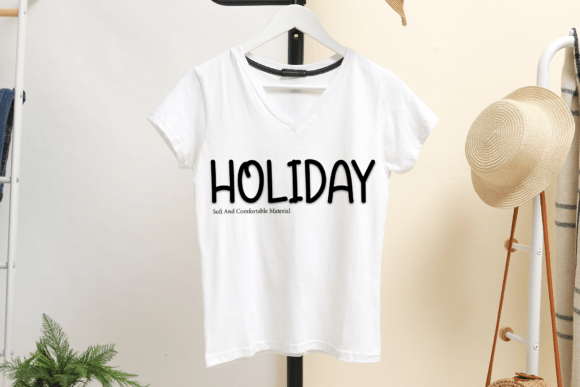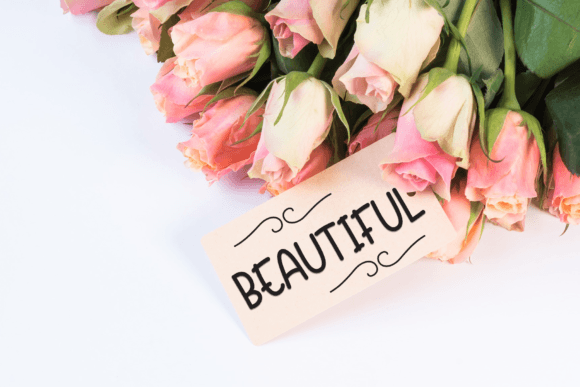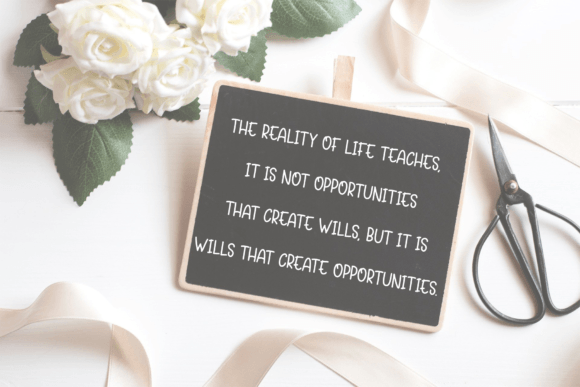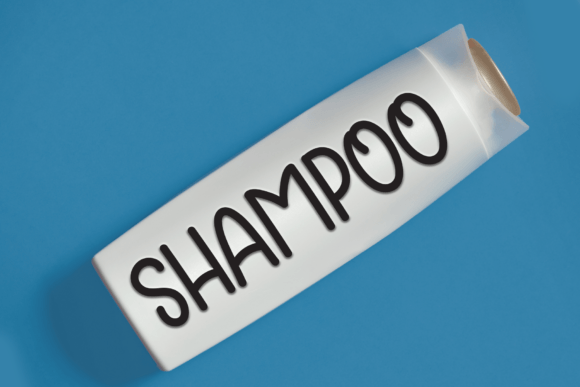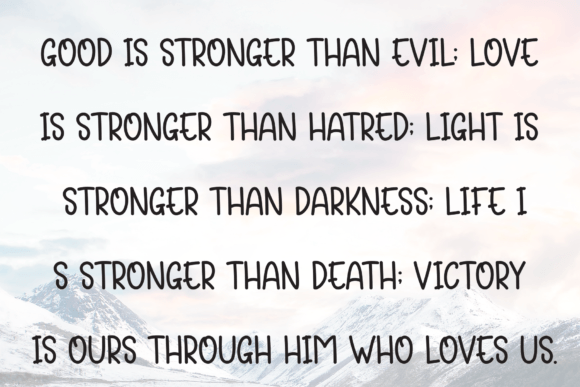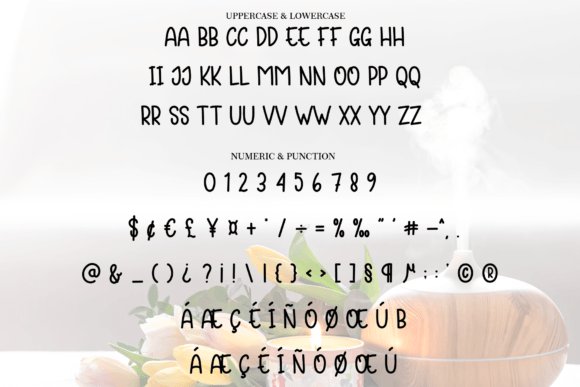
The Sweet Charm of Aroma Therapy Font: A Designer’s Delight
I’ll never forget the time I was working on a wedding invitation project, and my client asked for a font that was “sweet, friendly, and playful.” I scoured the internet, tried out dozens of fonts, but nothing seemed quite right. That was until I stumbled upon Aroma Therapy Font. This beautiful, handwritten font won my heart and my client’s, too! In this article, I’ll share my experience with Aroma Therapy Font, its features, and how to make the most of it in your designs.
- ✨ Fresh and Cute: Aroma Therapy Font is perfect for designs that need a fun touch. Its sweet and friendly vibe makes it ideal for wedding invitations, cards, and more.
- ✅ Highly Readable: The font is clear and easy to read, even at smaller sizes, making it perfect for body text or captions.
- 💕 Versatile: Aroma Therapy Font can be used for a wide range of projects, from digital designs to print materials.
While Aroma Therapy Font is an excellent choice, there are a few things to keep in mind:
- 🤔 Limited Formality: As a handwritten font, Aroma Therapy may not be the best choice for very formal or professional designs.
- ⚠️ Glyph Limitations: While the font has a range of glyphs and alternates, it may not have every special character or symbol you need.
The Story Behind Aroma Therapy Font
Aroma Therapy Font was designed with love and care by a talented type designer. Inspired by the world of perfumery and the art of fragrance, this font was crafted to evoke feelings of warmth and comfort. With its sweet, friendly vibe, Aroma Therapy Font is perfect for designs that need a touch of personality.
Q: What is Aroma Therapy Font best used for?
A: Aroma Therapy Font is ideal for designs that need a sweet, friendly touch, such as wedding invitations, cards, and other creative projects.
Q: Is Aroma Therapy Font suitable for body text?
A: Yes, Aroma Therapy Font is highly readable and can be used for body text, but it may not be the best choice for very long documents or formal texts.